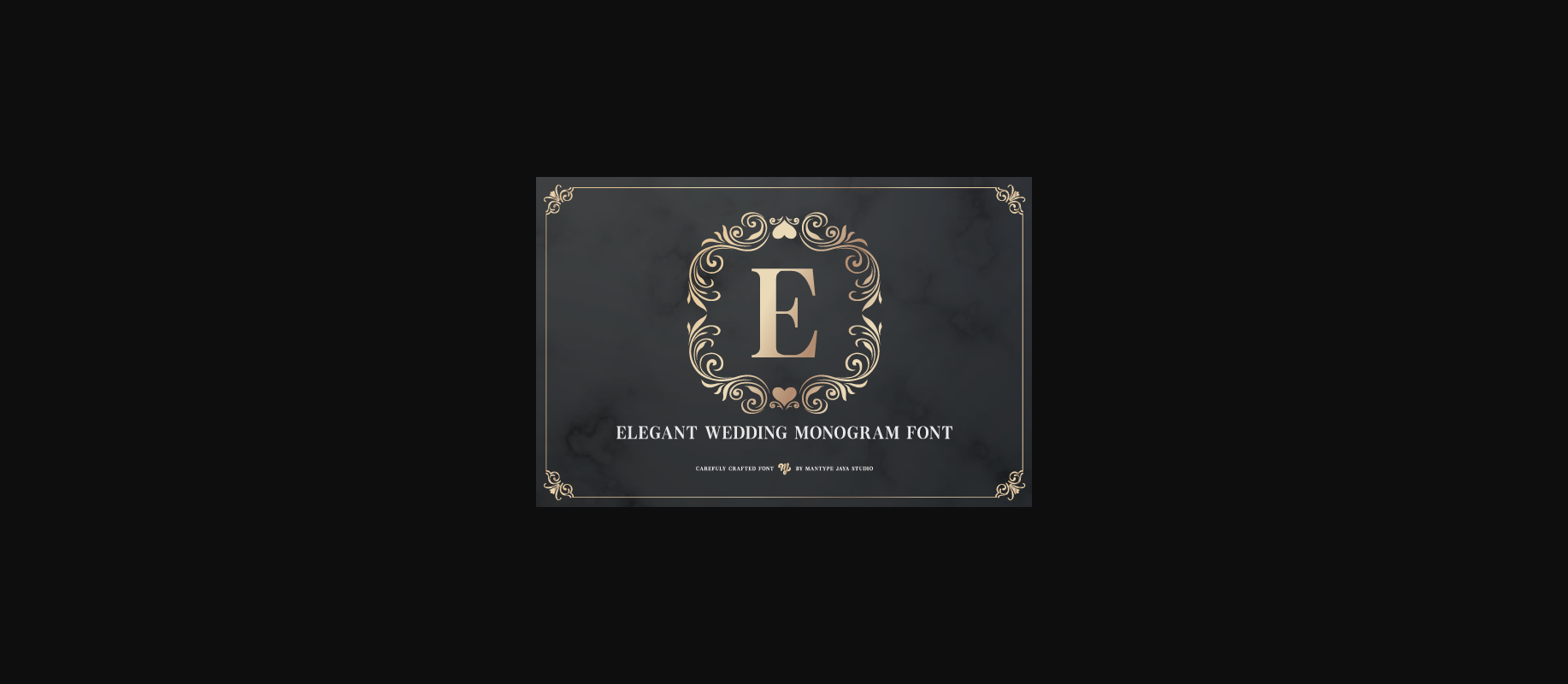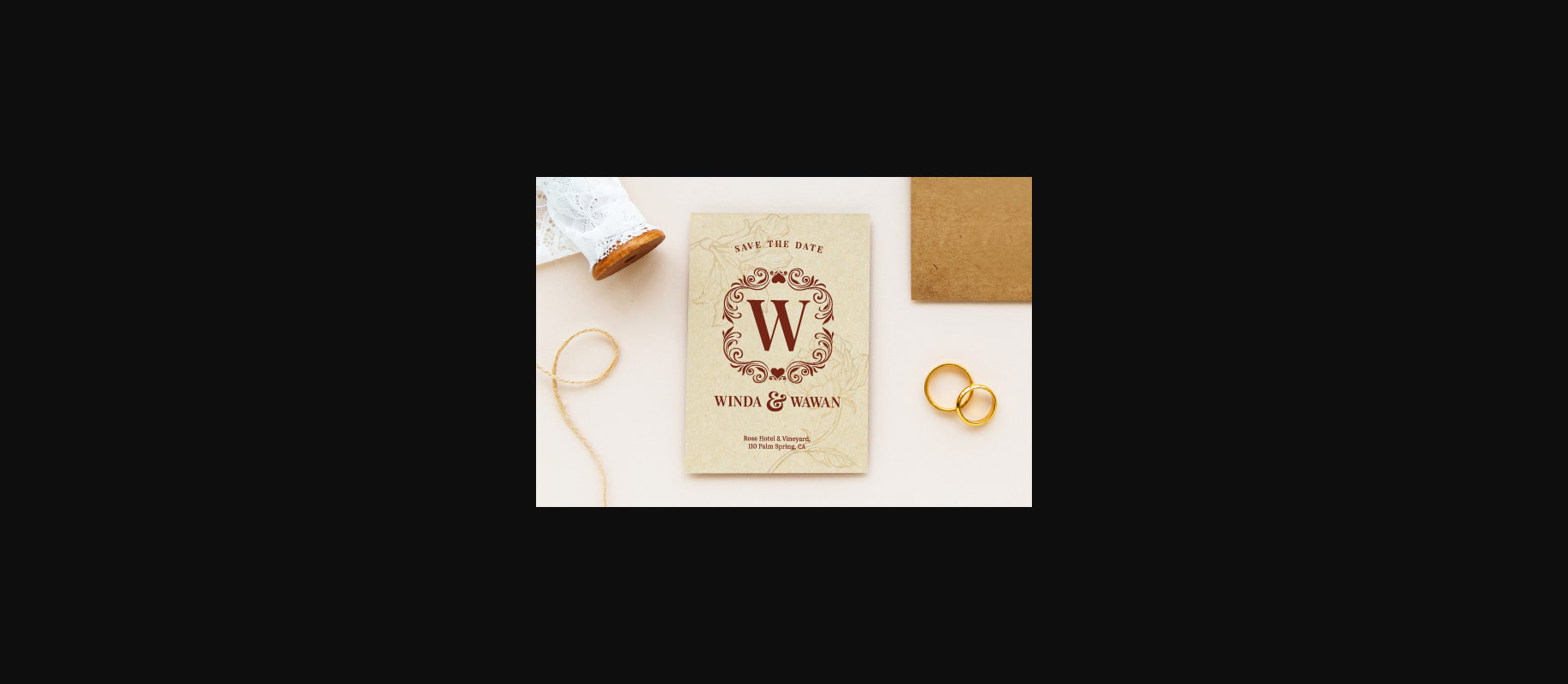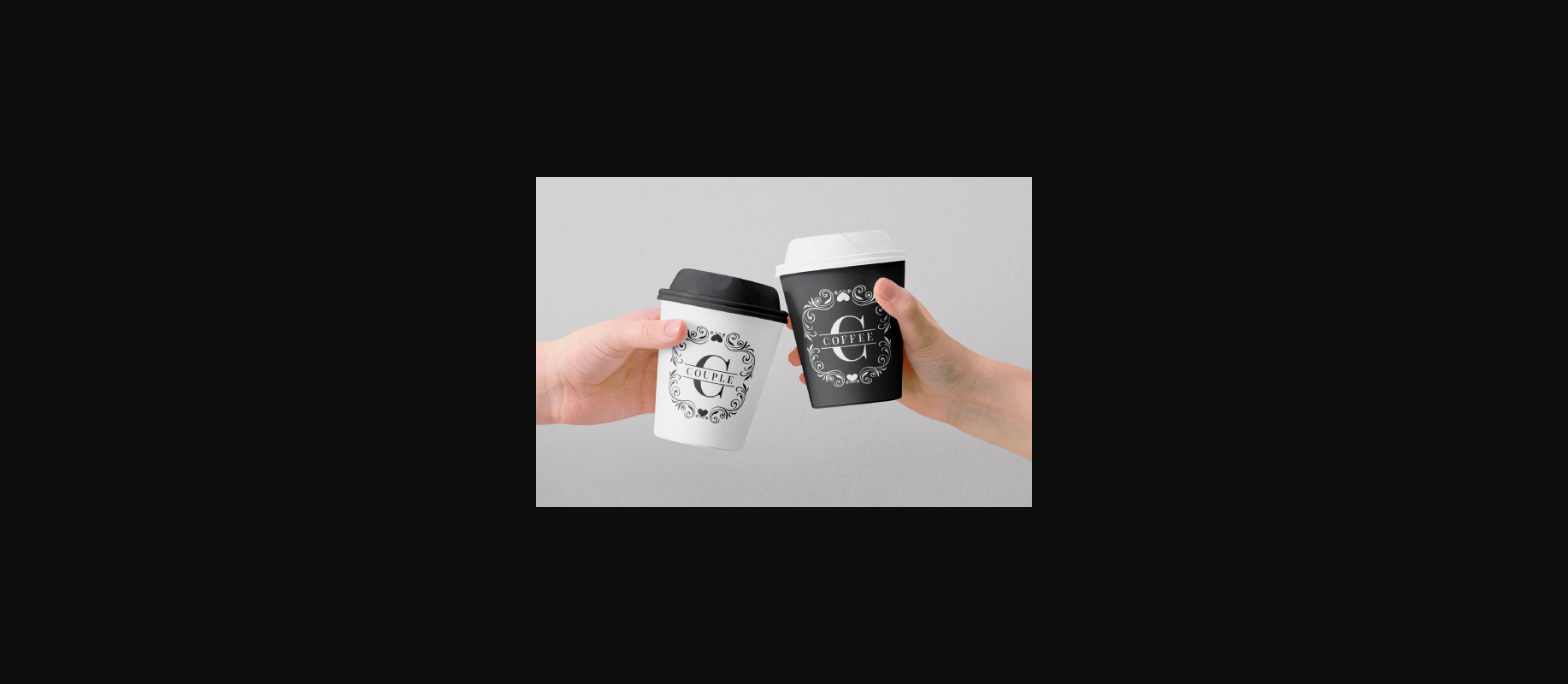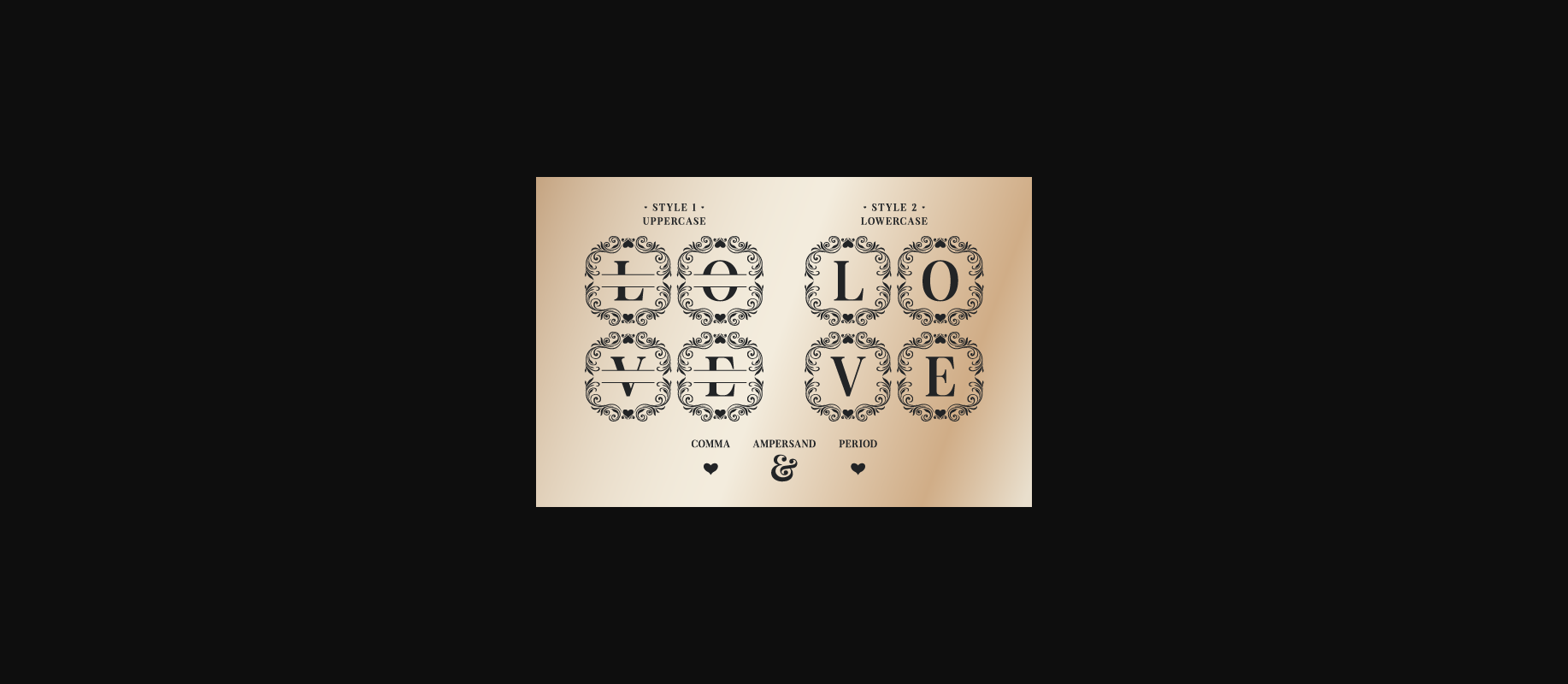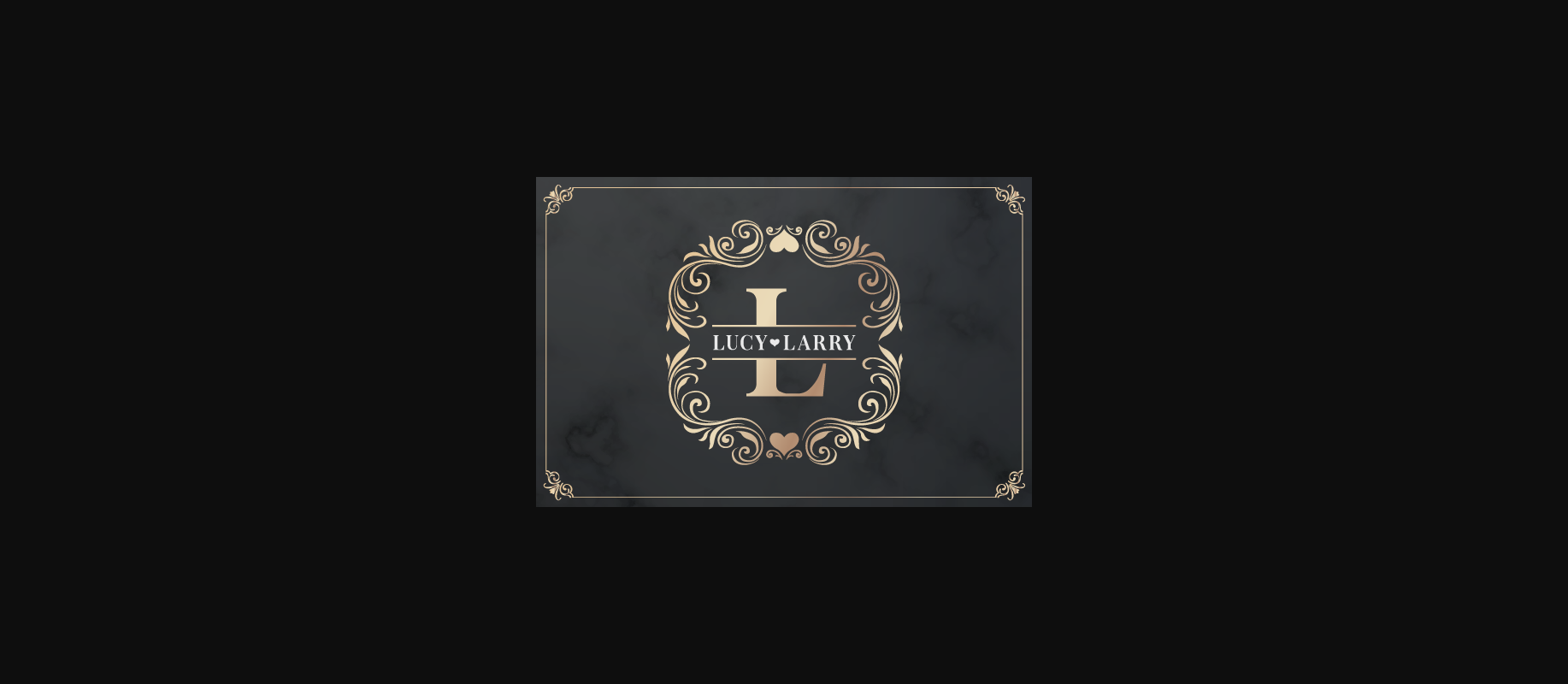
About Elegant Wedding Monogram Font
Elegant Wedding is a deluxe monogram font. A luxurious mix of a serif font and a decorative floral frame. Perfect for wedding invitations and initial letter logos. In addition to the monogram font, you’ll get an all-caps serif font that allows you to mix and match.